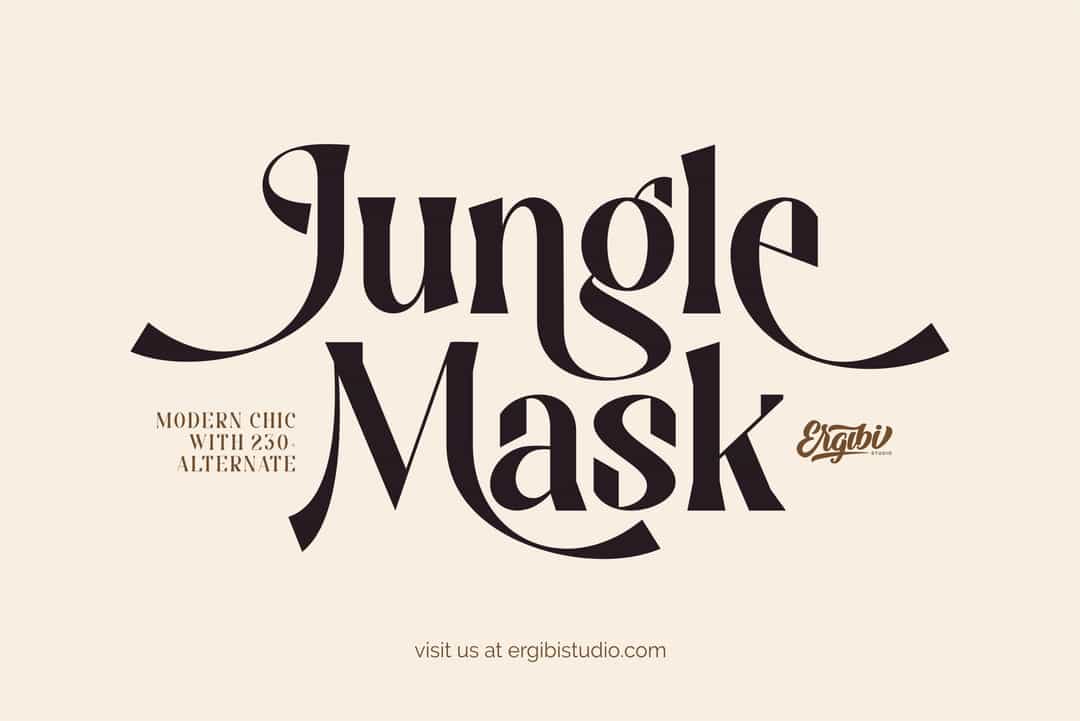
Discover Jungle Mask Font, part of the Serif Display collection—a versatile and unique font perfect for adding a personal touch to your projects. Download it for free and enjoy crafting designs with style, from invitations to social media posts. This font is available exclusively for personal use, giving you the freedom to create without limits. Unlock your creativity with Jungle Mask Font today!
Jungle Mask Serif font is an elegant and modern display font encoded with PUA for easy glyph access. Use it to create stunning designs and enjoy its incredibly flexible style!